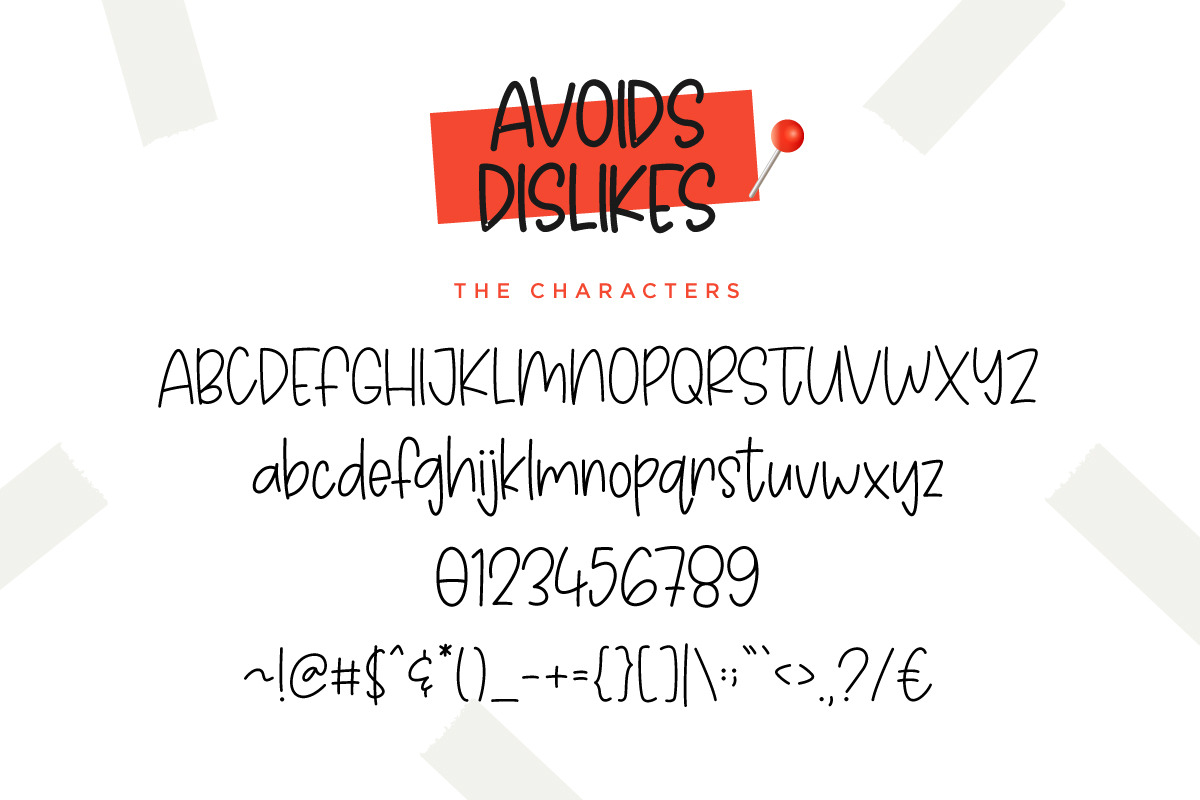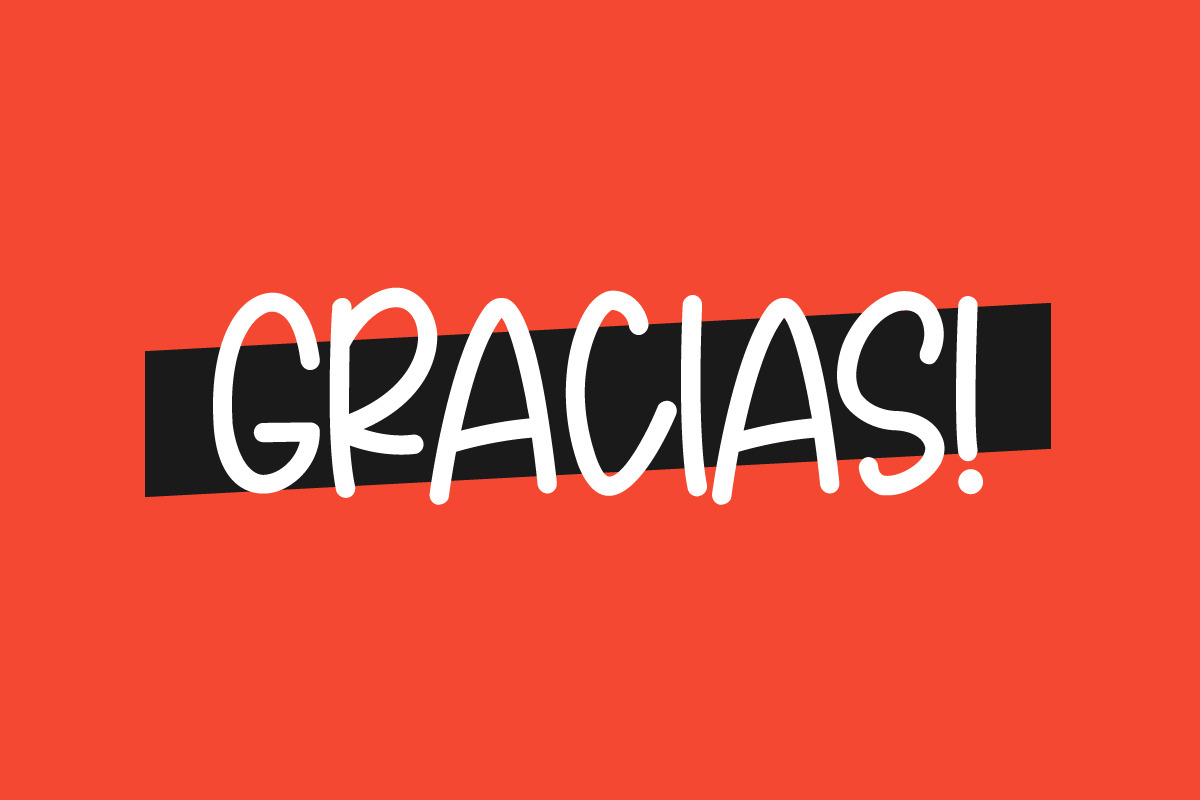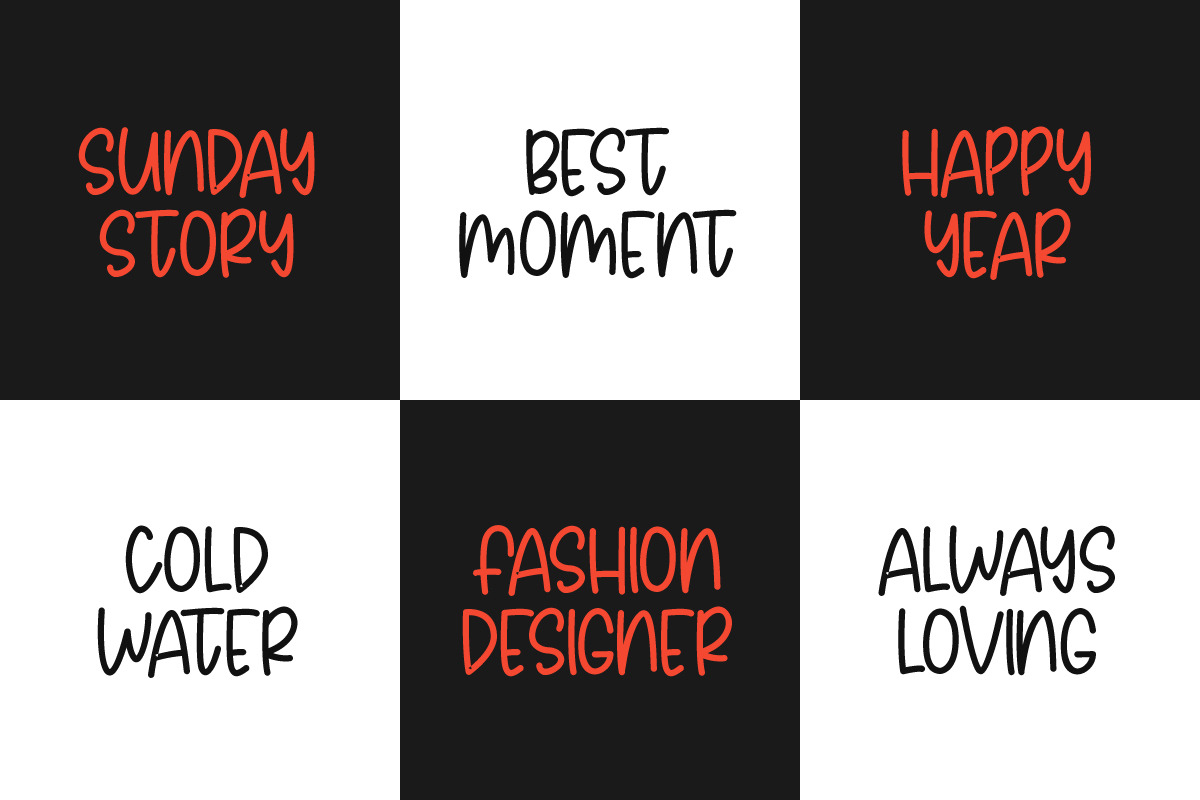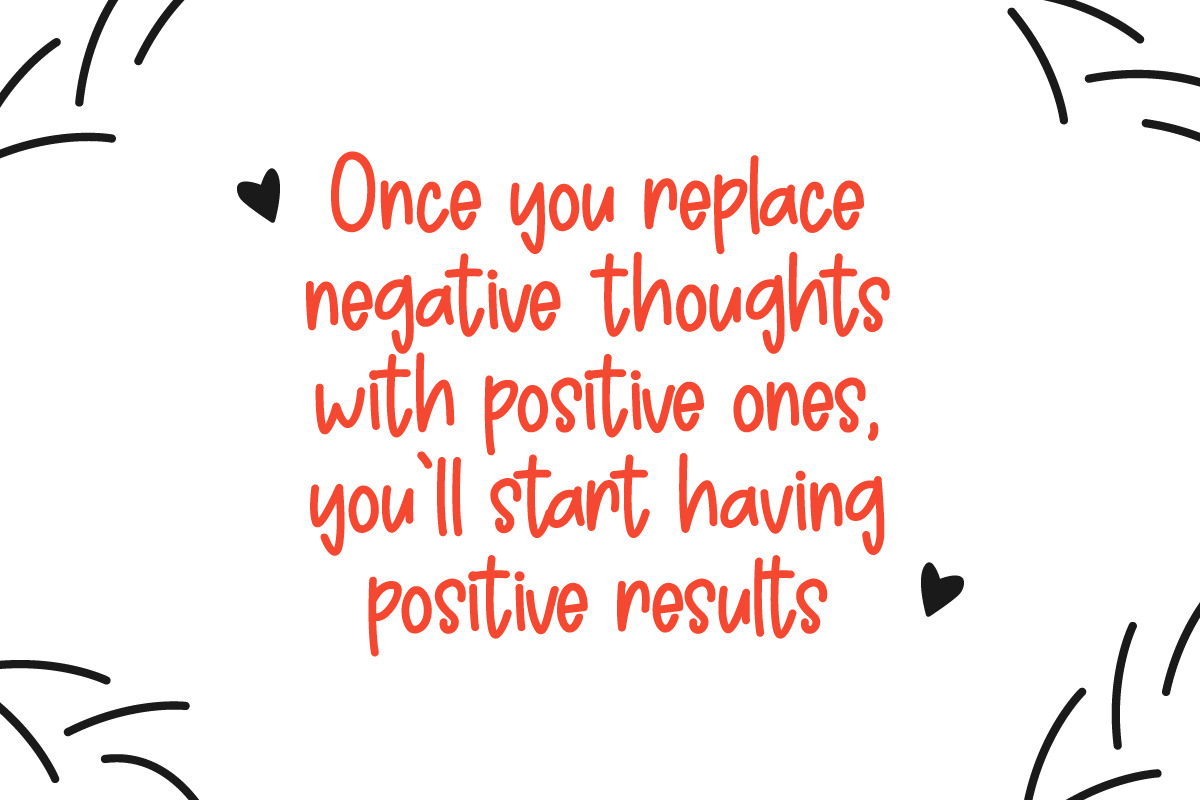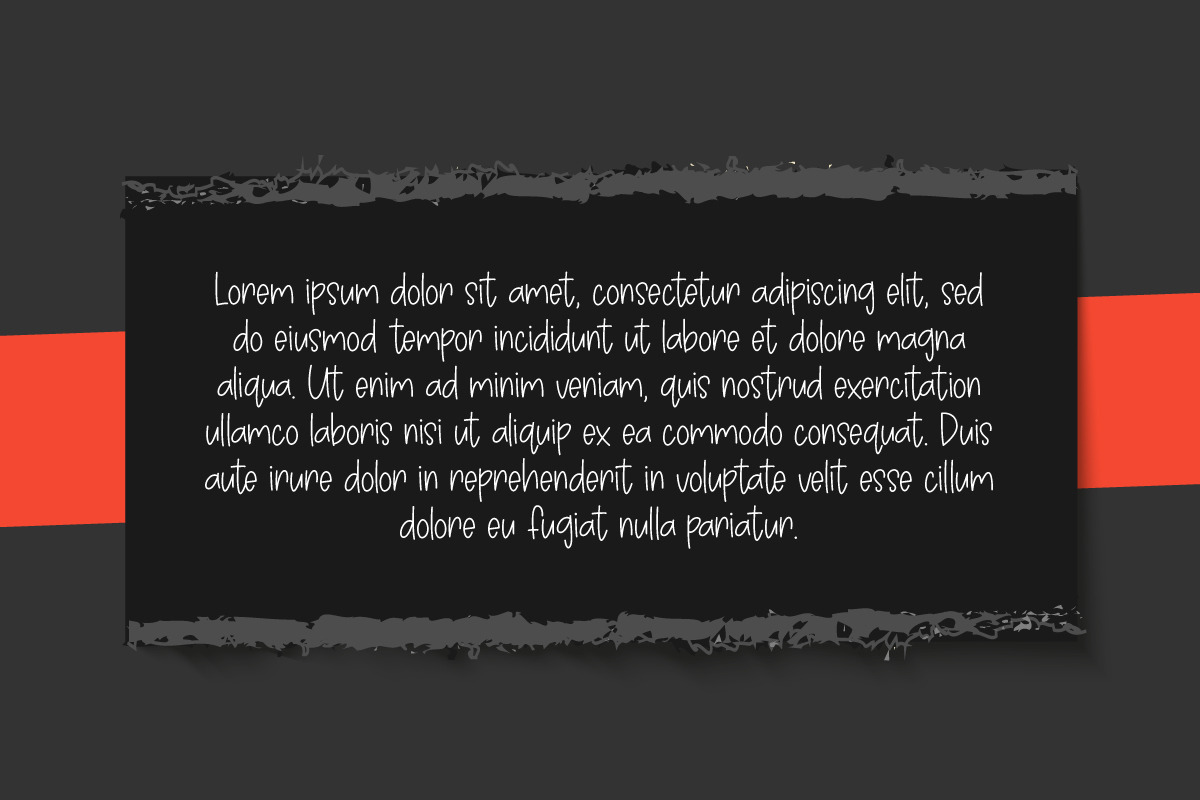
Avoids Dislikes | 3 Handmade Font
Avoids Dislikes handmade font!Thanks for checking out this cute hand drawn font. Avoids Dislikes is a beachy and fun handwritten font that is absolutely perfect for quotes, products, logos, packaging, banners, tees, story or posters with a lot of text and so much more! Fresh and clean, it's beautiful when used for cosmetic and feminine contexts, but is also masculine enough to be used for strong logos and branding.
This font comes with 3 version :
Numbers + Punctuation
- This font comes with 3 version : REGULER ITALIC BOLD Features : Uppercase letters Lowercase letters Numbers + Punctuation Multilingual suppo
- Uppercase letters
- Lowercase letters
- Numbers + Punctuation
- Multilingual support
- Avoids Dislikes Regular
- Avoids Dislikes Italic
- Avoids Dislikes Bold